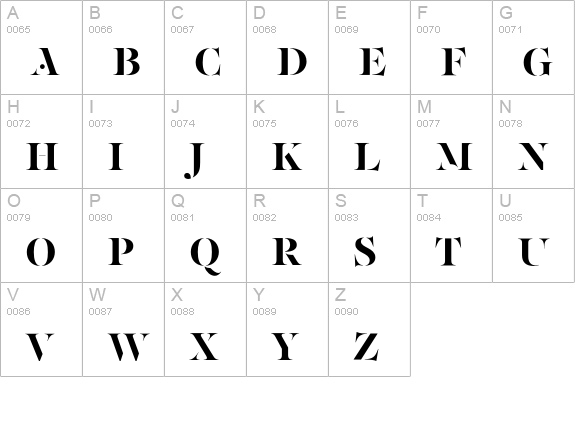
PFRegalStencilPro-Bold is a strong, high-contrast variant in the PFRegalStencilPro typeface family \xE2\x80\x94 well suited to headlines, attention-grabbing titles, and strong calls-to-action.
PFRegalStencilPro-Bold is a bold and striking stencil font that exudes elegance and sophistication. With its clean lines and modern aesthetic, this font is perfect for making a statement in your designs. Its strong presence makes it ideal for headlines, posters, and branding projects that require a bold and impactful look. This font combines the classic stencil style with a touch of contemporary flair, resulting in a versatile typeface that can be used in various design applications. Whether you're working on a fashion magazine layout, a sleek logo design, or a stylish packaging project, PFRegalStencilPro-Bold will add a touch of refinement and refinement to your work. The best part? PFRegalStencilPro-Bold is available for free download at FontsMarket.com, making it accessible to designers and creatives looking to elevate their projects with a touch of sophistication. Don't miss out on this opportunity to add a touch of elegance to your designs with this stunning stencil font!